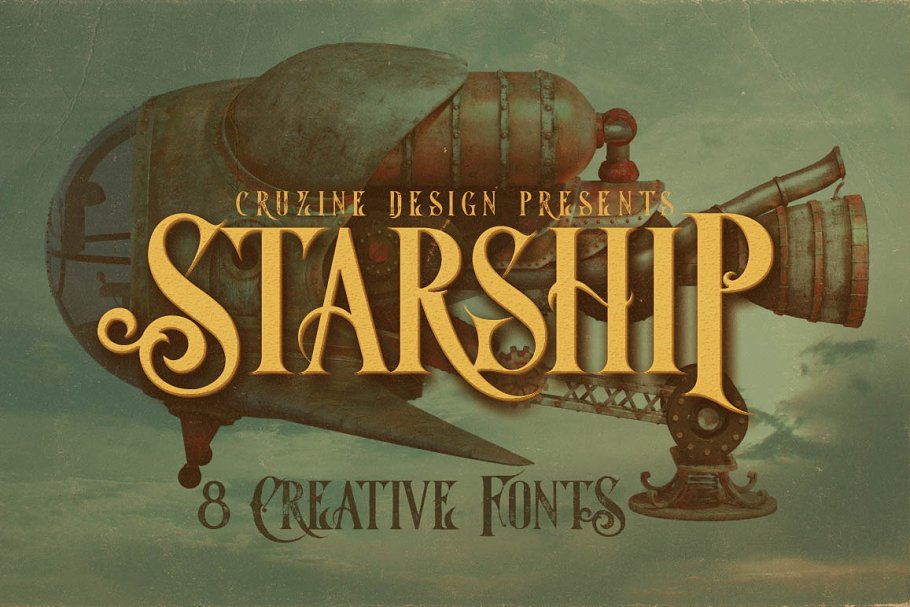
Introducing Starship Typeface - the Best Font for Logos Creative, designed by Cruzine Design. This retro, vintage or steampunk style display font is the perfect addition to your new projects. With its grunge/retro/vintage vibe, it adds a unique and eye-catching element to any design.
The Starship Typeface comes in 8 font files (otf & ttf) including regular & grunge, inline & grunge, shadow & grunge, shadow inline & grunge. Whether you're looking for a clean and classic look or a more distressed and edgy feel, this font family has got you covered.
Looking to take your design to the next level? Starship Typeface is your answer. It's the perfect font for logos, branding, posters, packaging, t-shirt designs and more. With its bold and captivating look, your designs will stand out from the crowd.